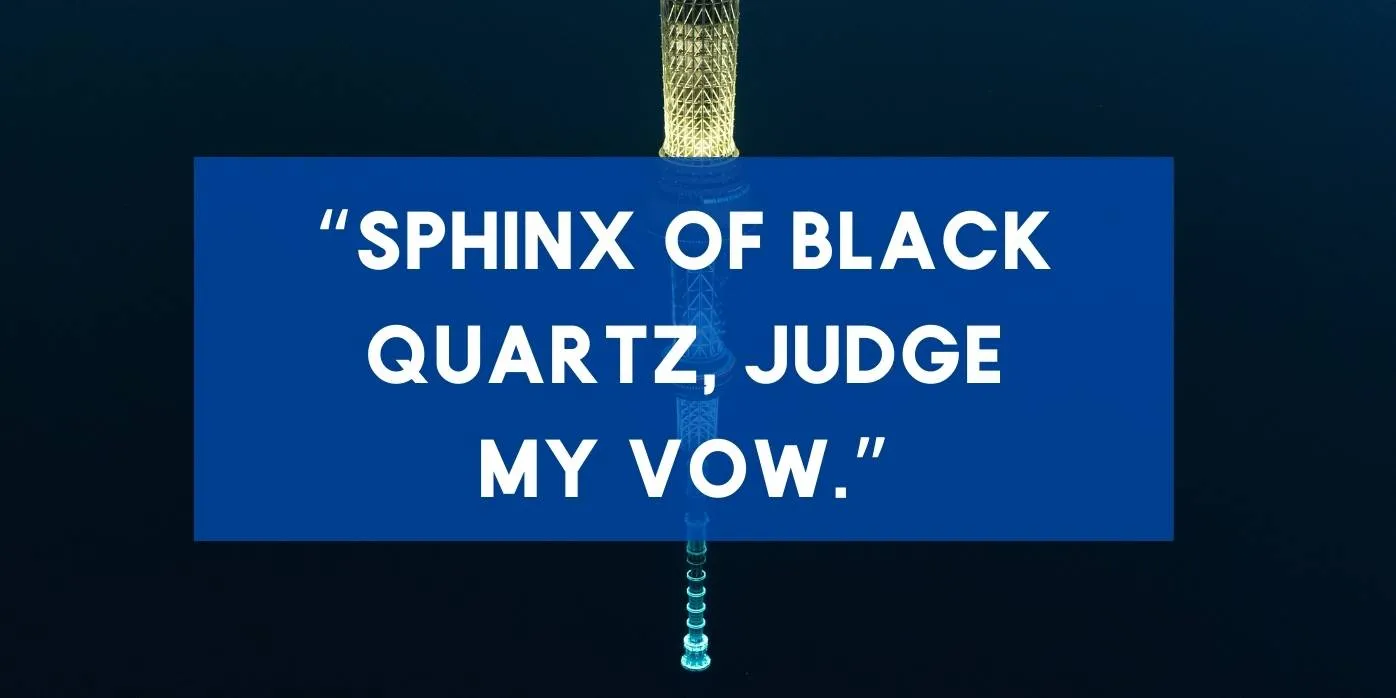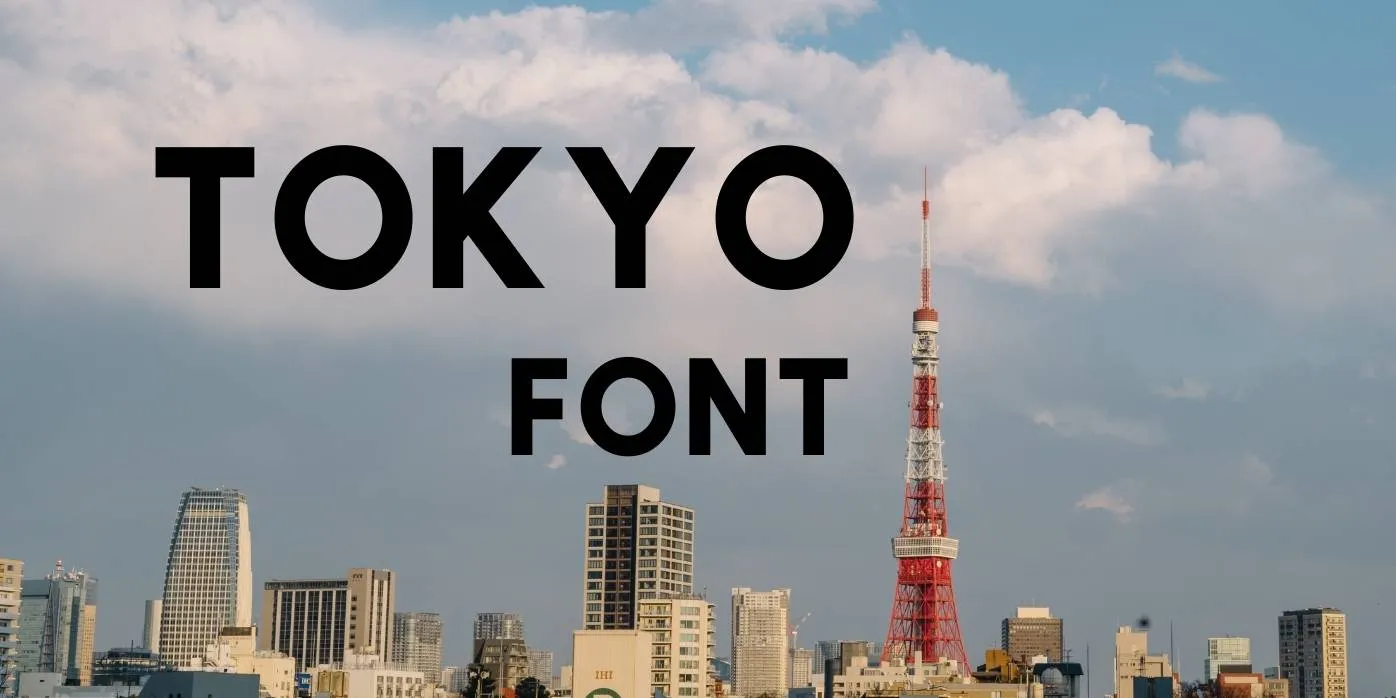
Tokyo Font
Tokyo Font was developed by famous designer Richard Austin. This font family belongs to the Sans-serif typeface. The main features of This Font are its clean and modern look. This typeface will help you to understand the uses of this typeface in your web projects.
This stylish typeface is specified by the CSS Family. This cozy Font is a great choice for those who are looking for a simple and modern sans-serif typeface. This font family is perfect for any project that requires a clean and professional look. This typeface also includes special characters like ligatures and stylistic alternates.